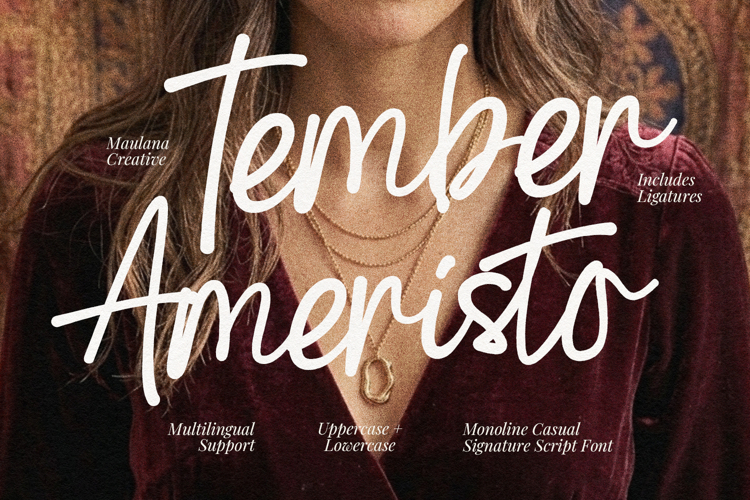
Tember Ameristo is a stylish monoline casual signature script font designed to bring elegance and organic warmth to your creative works. Featuring flowing cursive letterforms, natural ligatures, and comprehensive multilingual support, this typeface captures the effortless charm of genuine handwriting. Ideal for sophisticated branding, photography watermarks, luxury packaging, wedding invitations, lifestyle blogs, social media graphics, and elegant editorial layouts.
Tember Ameristo